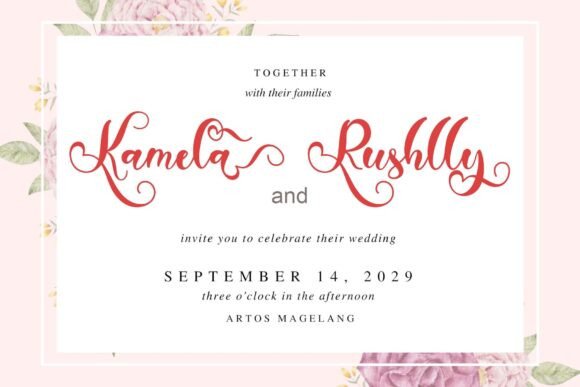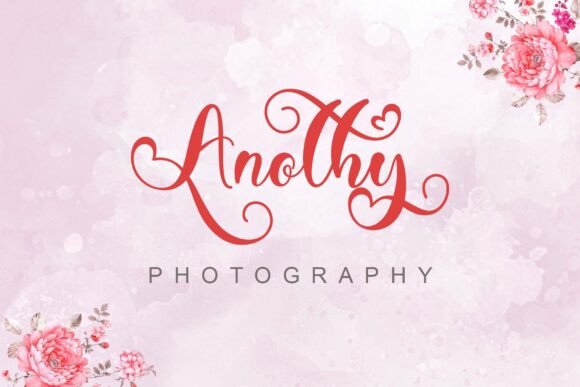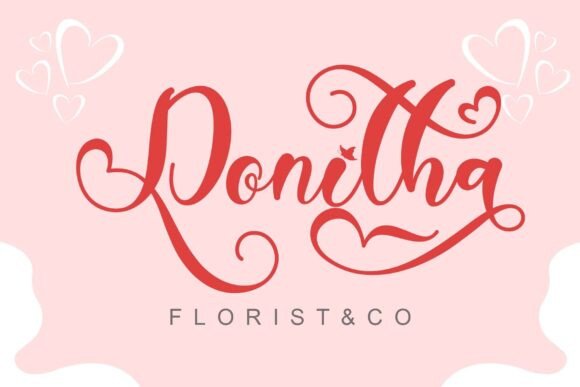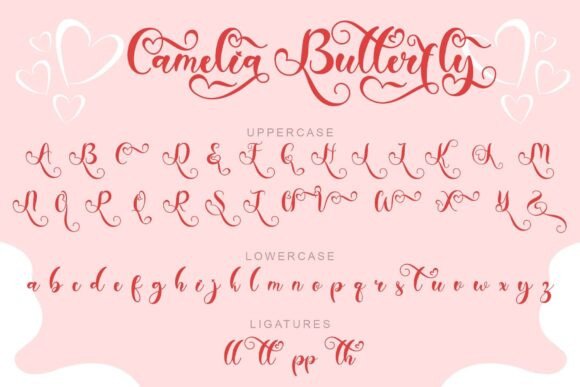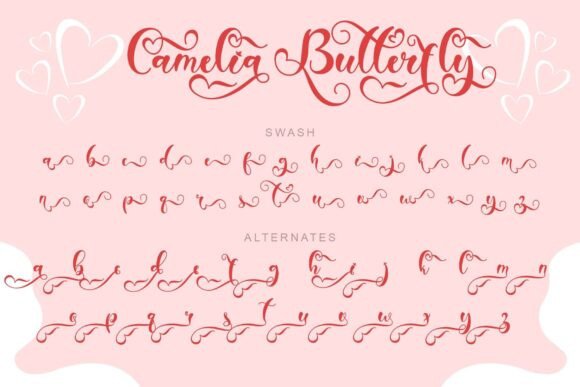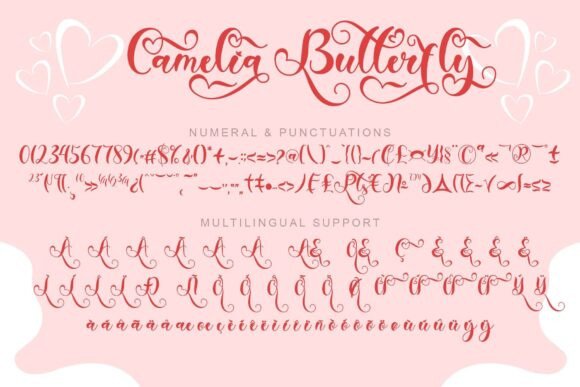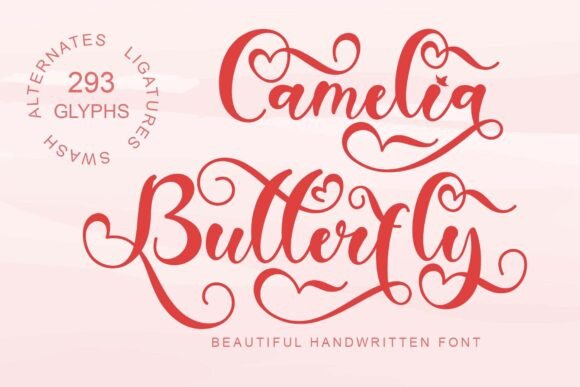
Introducing Camelia Butterfly Font: The Perfect Handwritten Font for Your Creative Projects
Are you a designer or crafter looking for a beautiful and lovely handwritten font to elevate your creative projects? Look no further than the Camelia Butterfly Font! This stunning font is perfect for a variety of occasions, including Valentine’s Day, weddings, invitations, photography, Christmas, winter, parties, birthdays, spring, and more.
What Makes Camelia Butterfly Font So Special?
Camelia Butterfly is a beautiful and lovely handwritten font that comes with a range of features that make it perfect for creative projects. Some of its key features include:
- Uppercase and lowercase letters
- Swashes and alternate letters for added flair
- Numbers, punctuation, and multilingual support
- Perfect for use on a variety of occasions, including Valentine’s Day, weddings, and more
As a designer or crafter, you know how important it is to have a font that is both beautiful and versatile. The Camelia Butterfly Font is perfect for a range of projects, including:
- Valentine’s Day projects: Create romantic and beautiful projects for Valentine’s Day with the Camelia Butterfly Font. Its elegant and cursive design makes it perfect for creating Valentine’s Day cards, invitations, and more.
- Wedding projects: The Camelia Butterfly Font is also perfect for wedding projects, including invitations, wedding cards, and more. Its elegant design and swashes make it perfect for creating beautiful and memorable wedding projects.
- Photography projects: Add a touch of elegance to your photography projects with the Camelia Butterfly Font. Its beautiful design makes it perfect for creating stunning photo albums, captions, and more.
- Christmas and winter projects: The Camelia Butterfly Font is also perfect for Christmas and winter projects, including holiday cards, invitations, and more. Its elegant design and swashes make it perfect for creating beautiful and festive projects.
- Party and birthday projects: Create fun and playful projects for parties and birthdays with the Camelia Butterfly Font. Its elegant design and swashes make it perfect for creating beautiful and memorable party and birthday projects.
- Spring projects: The Camelia Butterfly Font is also perfect for spring projects, including Easter cards, invitations, and more. Its elegant design and swashes make it perfect for creating beautiful and fresh projects.
Why Choose Camelia Butterfly Font?
There are many reasons why you should choose the Camelia Butterfly Font for your creative projects. Here are just a few:
- Unique and elegant design: The Camelia Butterfly Font has a unique and elegant design that will add a touch of sophistication to your projects.
- Versatile: The font is versatile and can be used for a range of projects, from Valentine’s Day to weddings and more.
- Easy to use: The font is easy to use and comes with a range of features, including uppercase and lowercase letters, swashes, and more.
- Multilingual support: The font comes with multilingual support, making it perfect for use in a range of languages.
The Camelia Butterfly Font is a beautiful and lovely handwritten font that is perfect for a range of creative projects. Its elegant design, swashes, and multilingual support make it perfect for use on Valentine’s Day, weddings, invitations, photography, Christmas, winter, parties, birthdays, spring, and more. Whether you’re a designer or crafter, this font is sure to become a favorite in your collection.